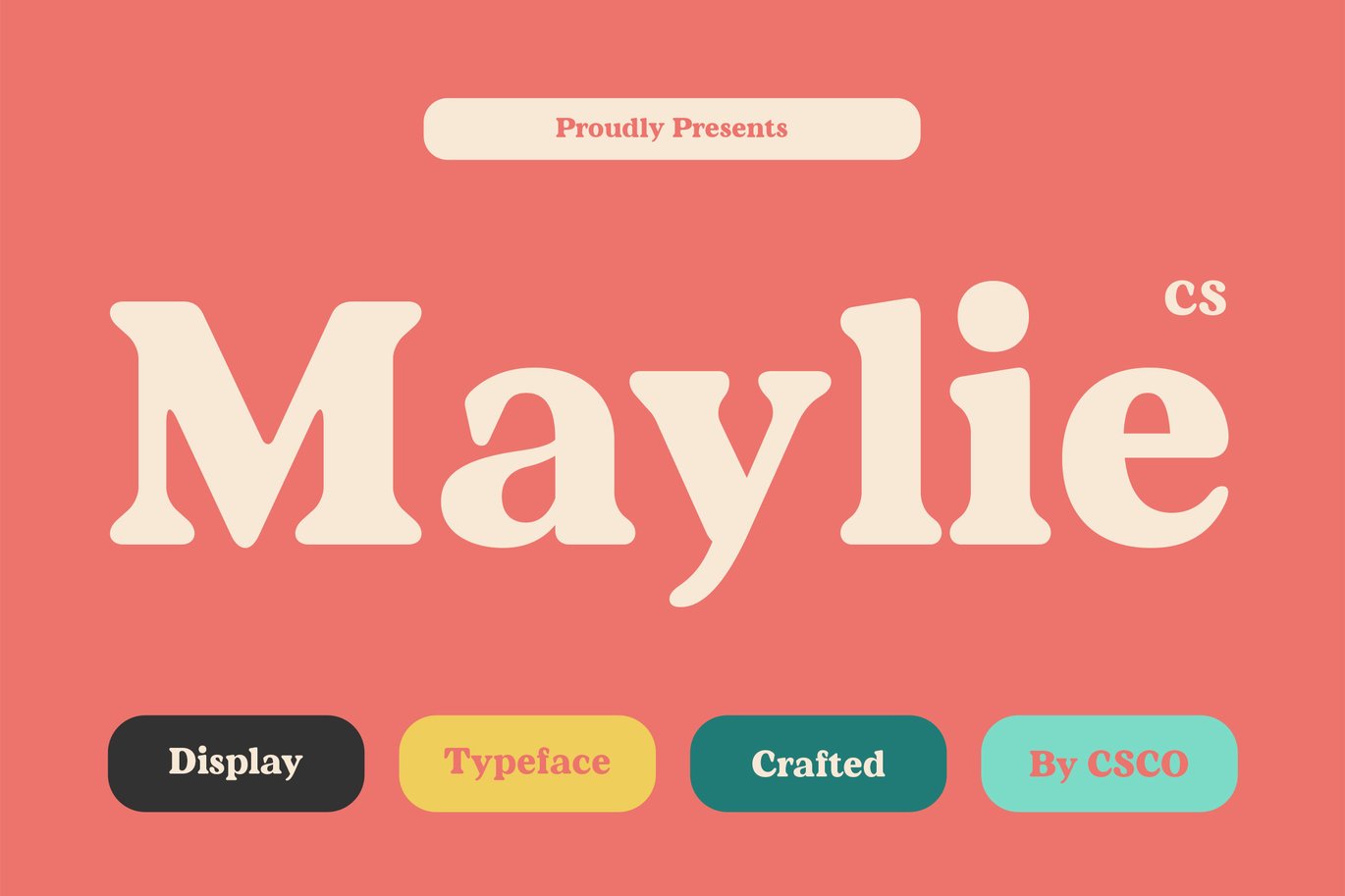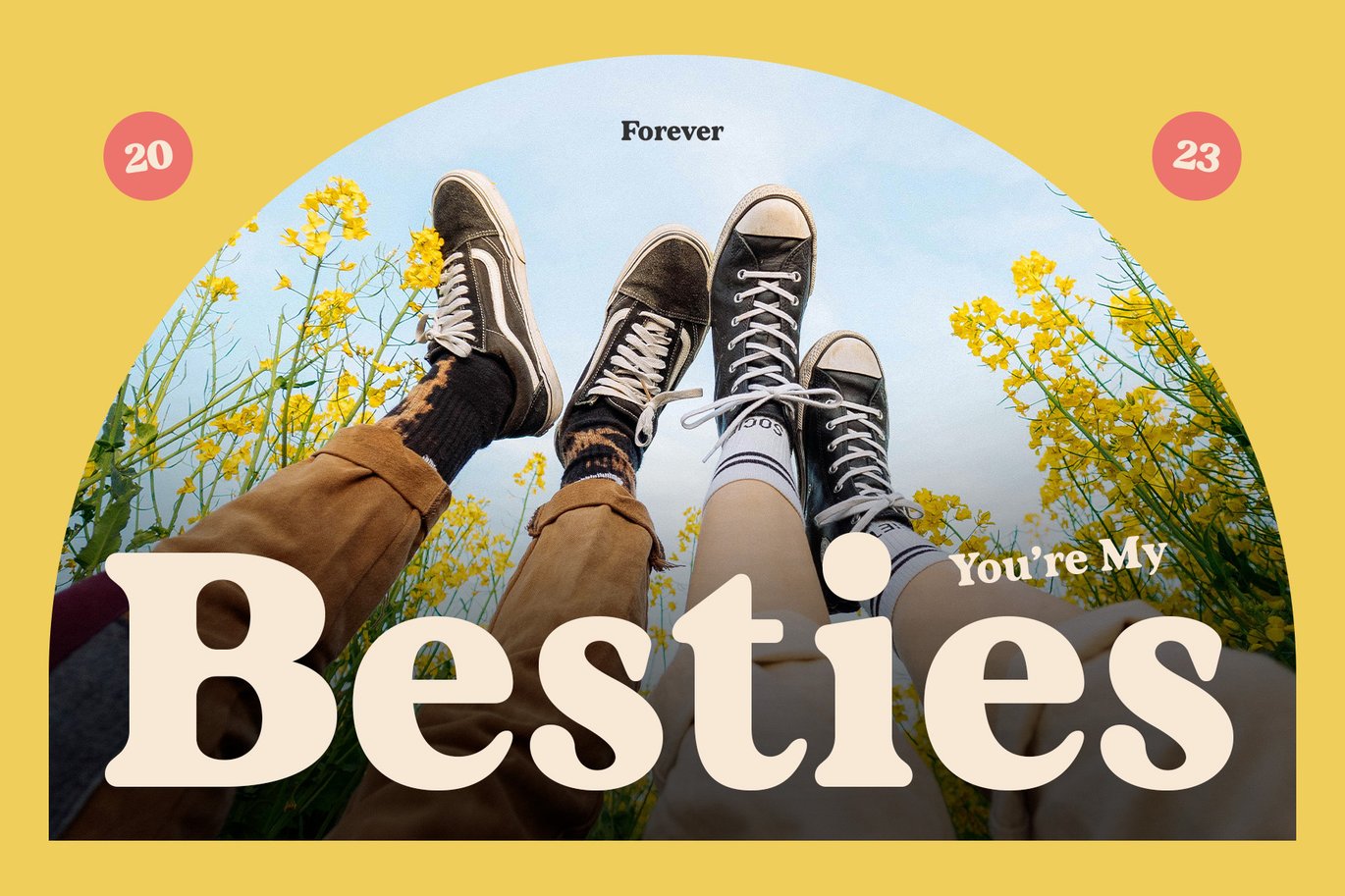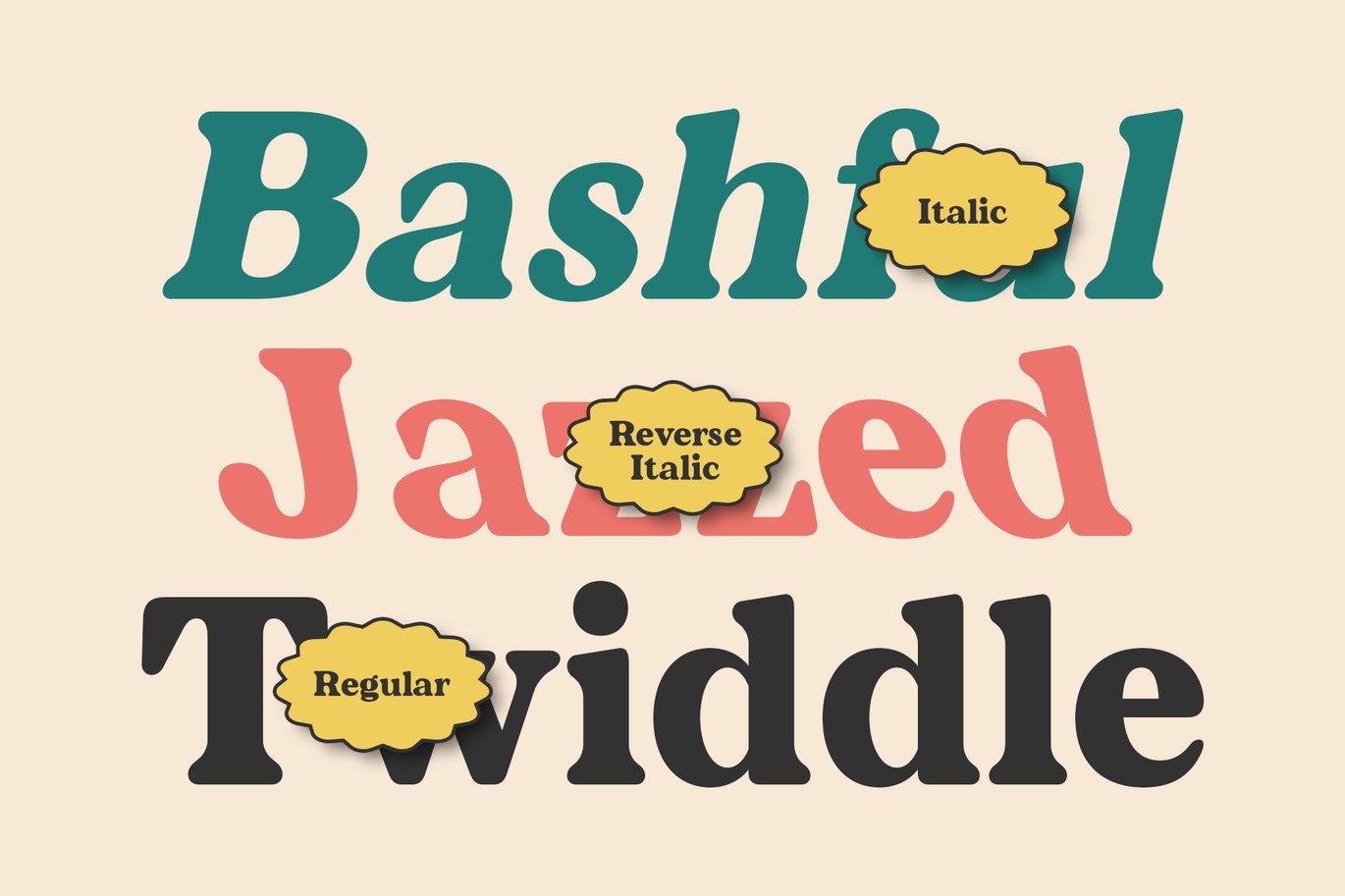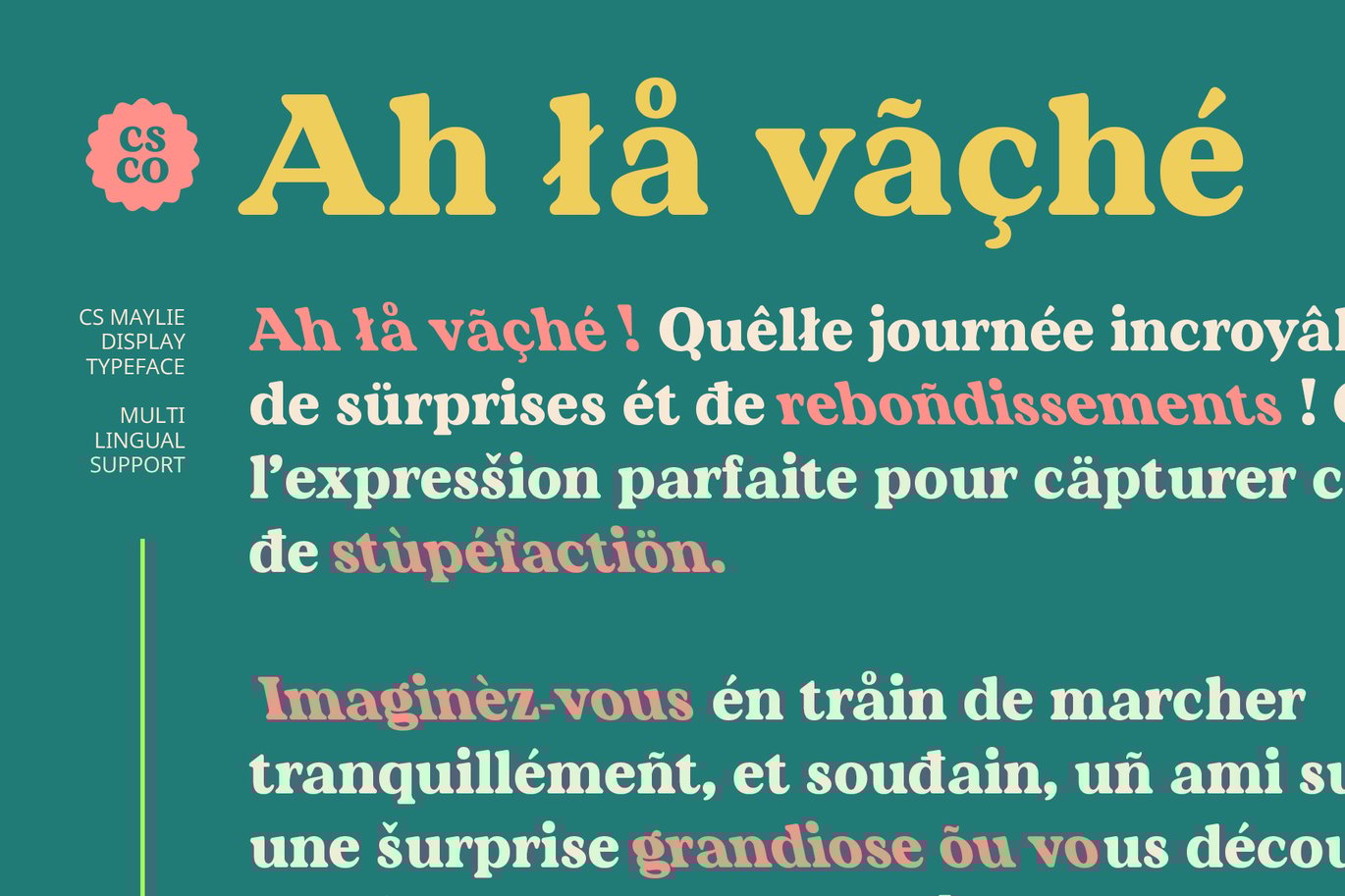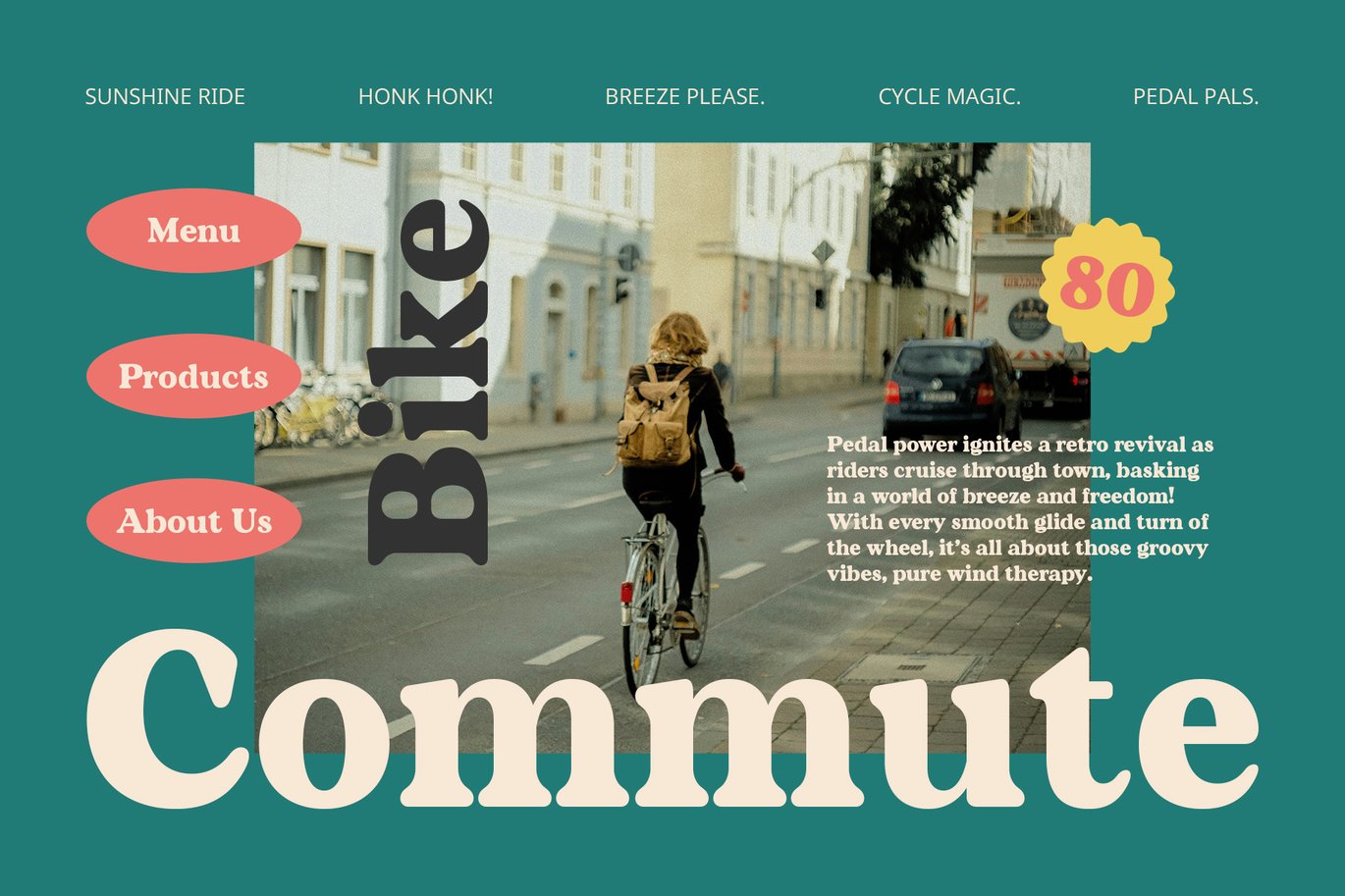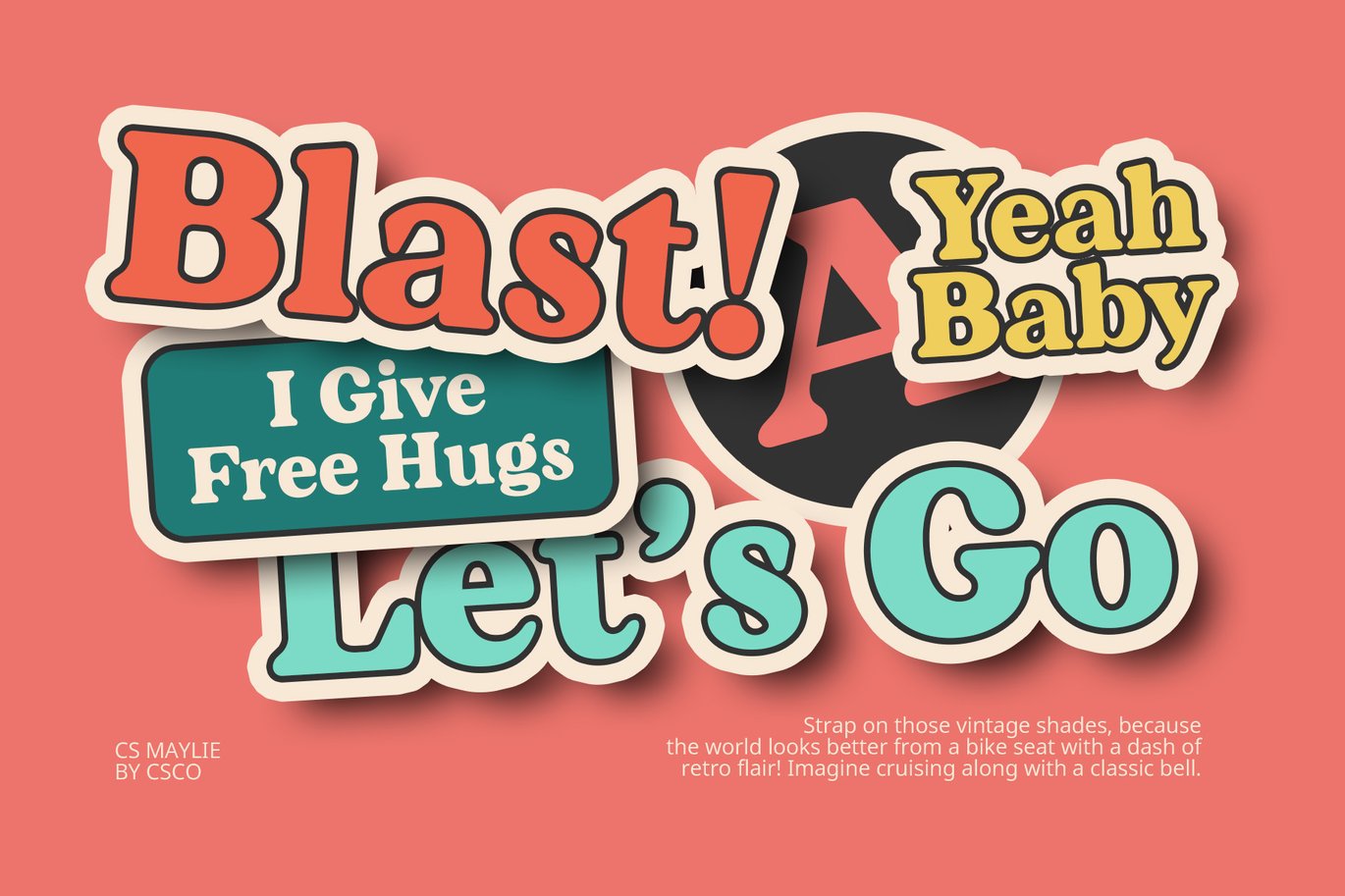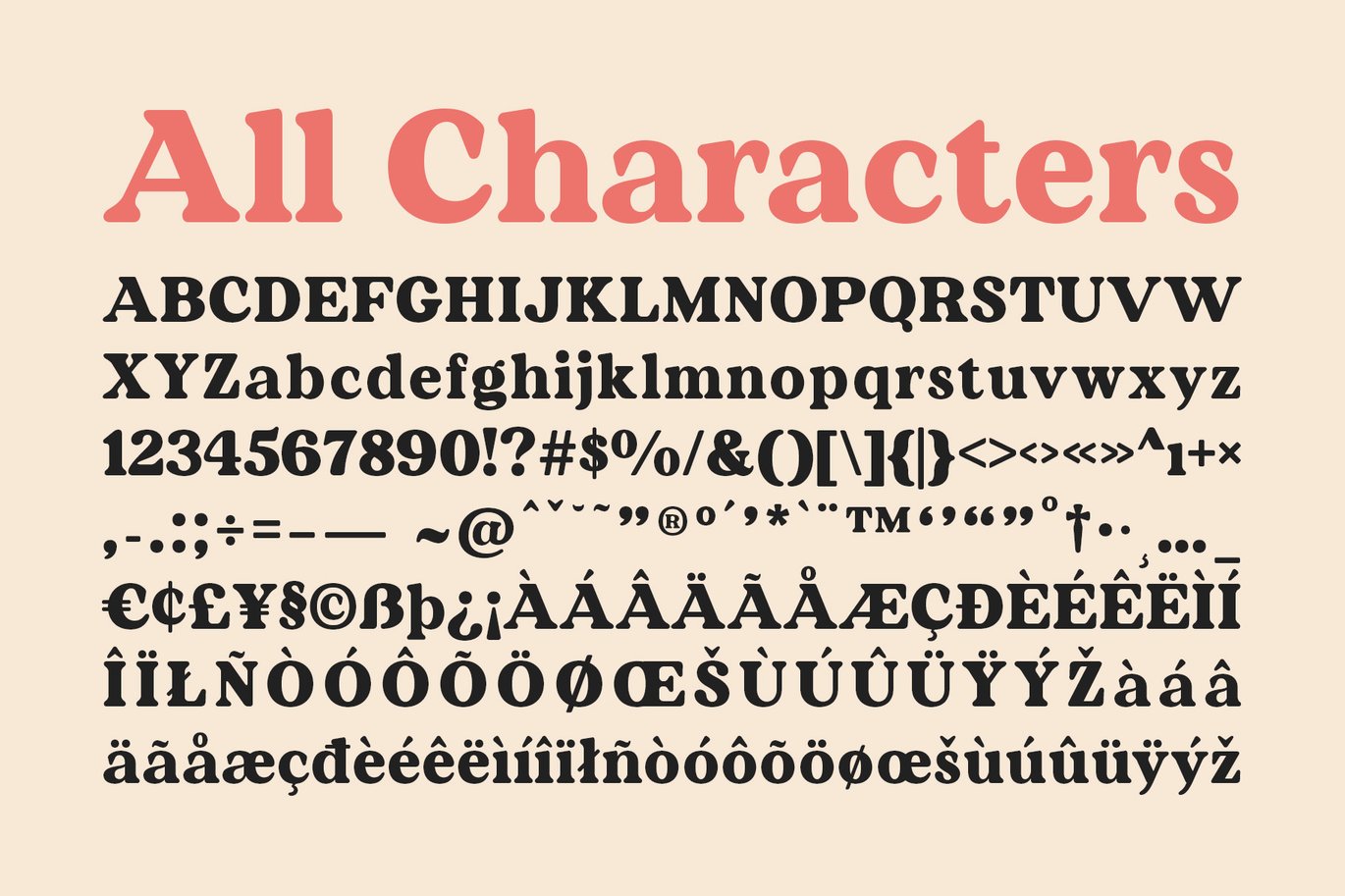
Maylie – Retro Font
CS Maylie – Retro Font: Bold Nostalgia with a Playful Twist
Retro-Inspired Bold Serif with Rounded Edges
CS Maylie is a bold, rounded serif font that seamlessly blends classic typography with a fun, retro 90s vibe. Its thick letterforms with smooth, curved edges create a soft, inviting feel, making it ideal for designs that want to evoke a sense of warmth and approachability.
Cheerful and Friendly Design
The rounded, thick strokes of CS Maylie combine with its 90s-inspired style to create a playful and friendly atmosphere. Whether you’re aiming to design with a vintage feel or infuse your project with a fun, youthful energy, this font provides the perfect solution. Its bold and inviting forms communicate a sense of joy, making it an excellent choice for designs that prioritize personality and creativity.
Nostalgic and Unique Visual Appeal
Perfect for projects that aim to transport viewers back to the lively 90s era, CS Maylie offers a distinctive combination of boldness and charm. Whether used for posters, youth branding, or any project looking to stand out with a sense of nostalgia, this font delivers a unique and memorable impact. Its blend of retro shapes and modern clarity creates an aesthetic that’s both timeless and fresh, making it ideal for a wide range of applications.